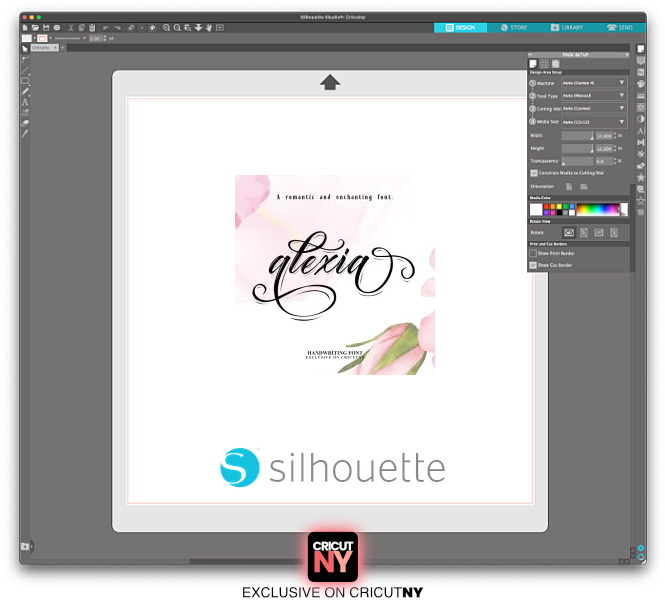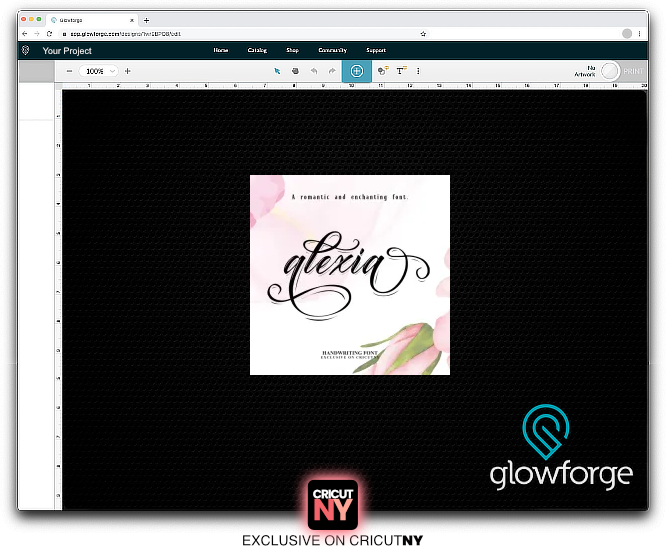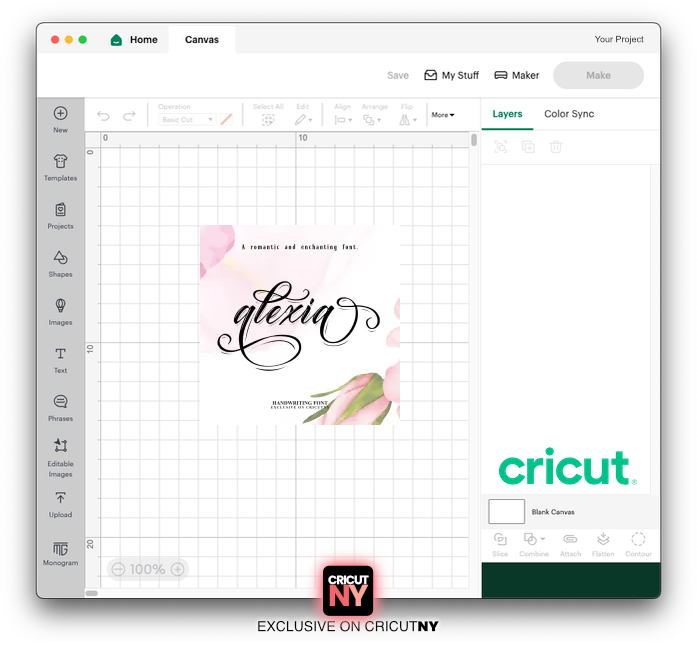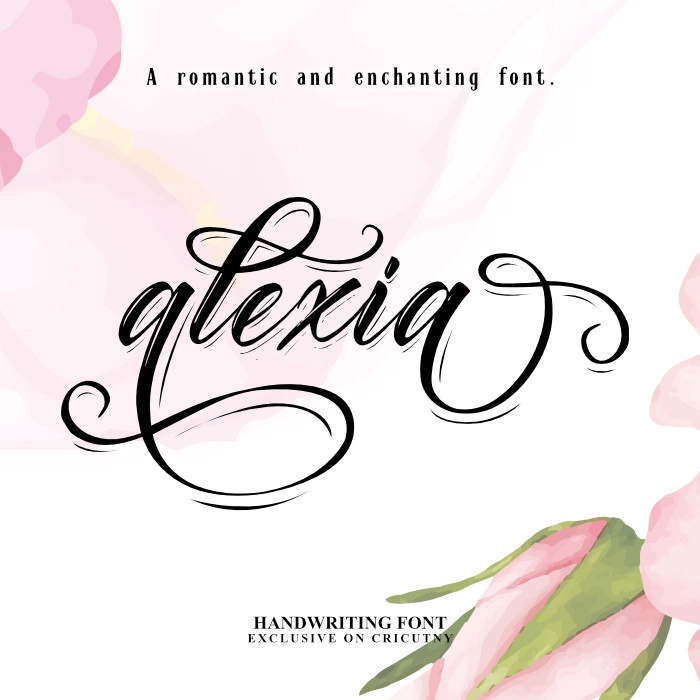
Font For Valentine’s Day
Valentine’s Day Script Font for Cricut 💖
This romantic handwritten script font is perfect for Valentine’s Day crafts, weddings, and love-themed projects. Designed with elegant brush strokes, it helps you create heartfelt names and messages that feel truly personal.
The font includes 59+ alternate long-tail letters, giving you multiple swirl and flourish options to customize every design.
The font includes the alphabet with french accents as a bonus and 59 long-tail letters.